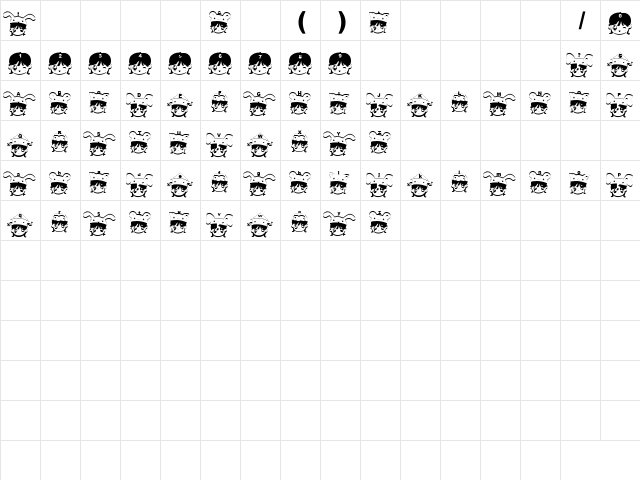
Pi_kaburi Regular
Design Context for Pi_kaburi Typeface
Pi_kaburi is a composed and adaptable typeface that performs quietly and consistently across a wide range of design contexts.